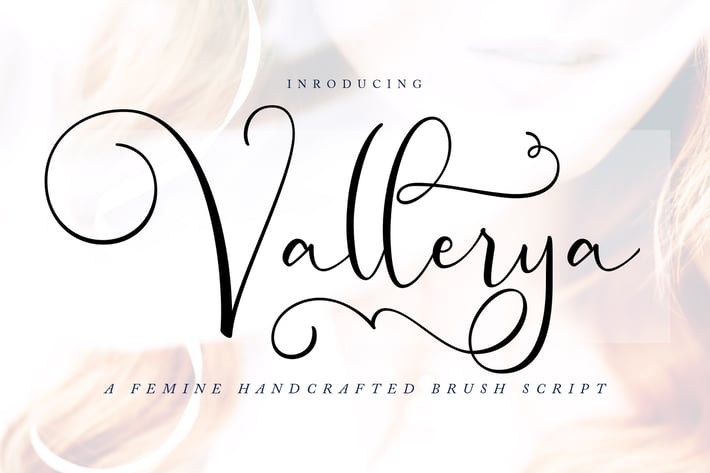
Vallerya | Handcrafted Brush Script Font
Vallerya | Handcrafted Brush Script Font with a calligraphy style, So beautiful on invitation like greeting cards, branding materials, business cards, quotes, posters, and more!